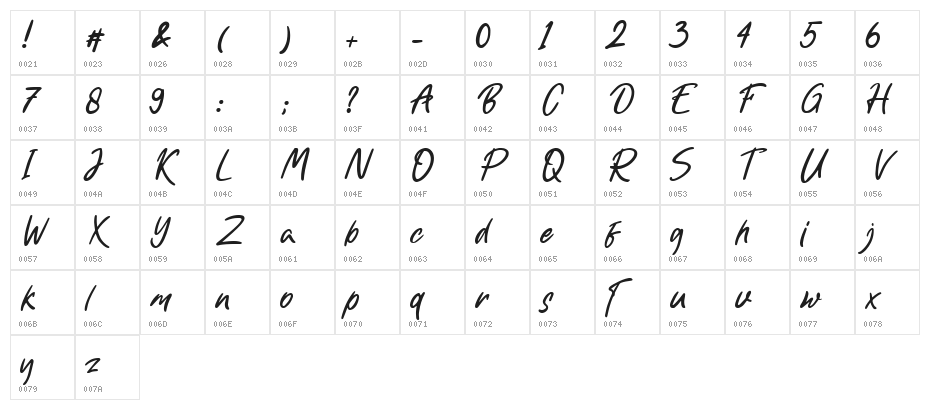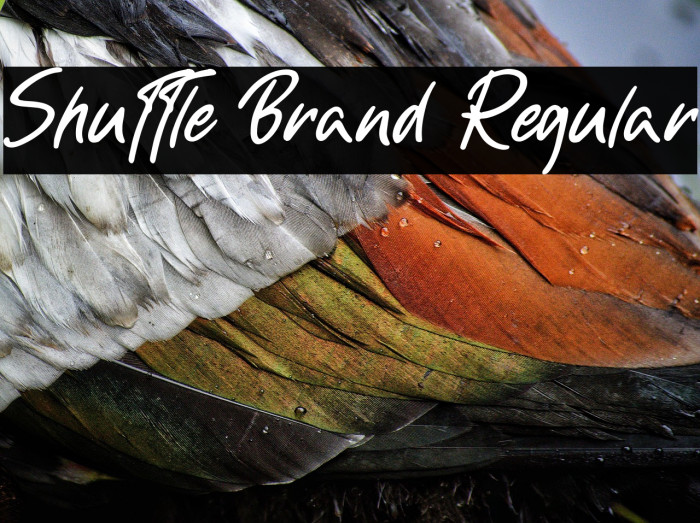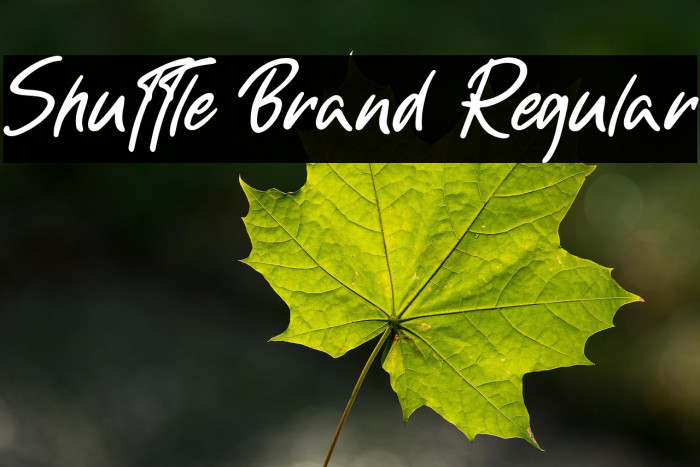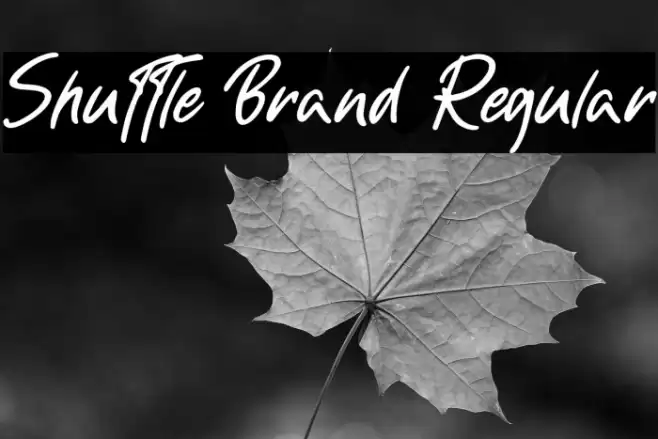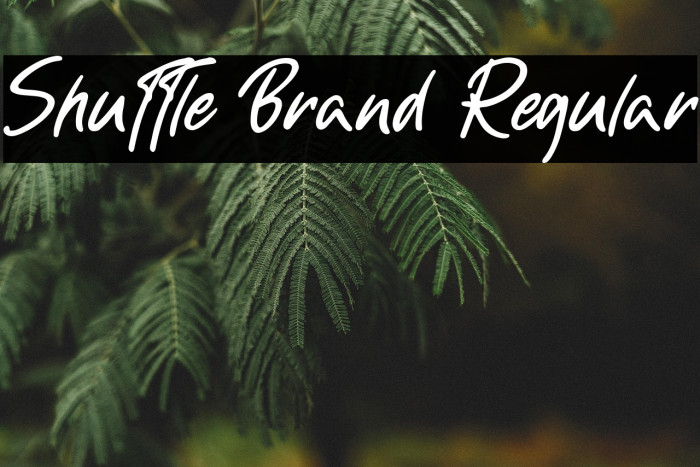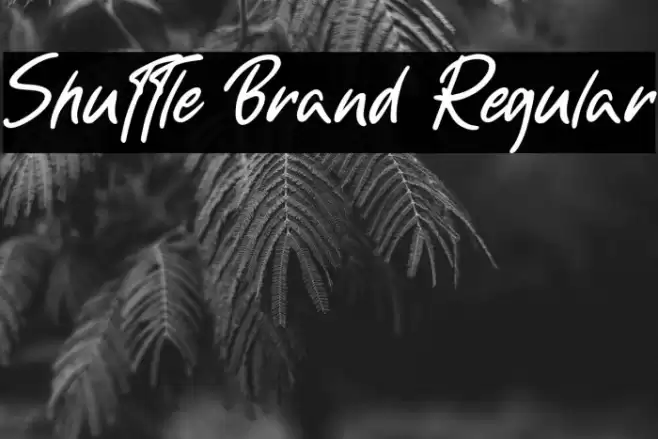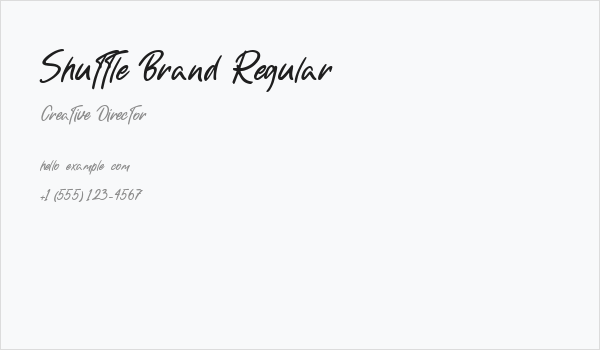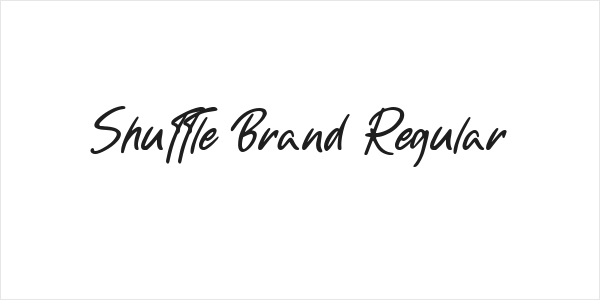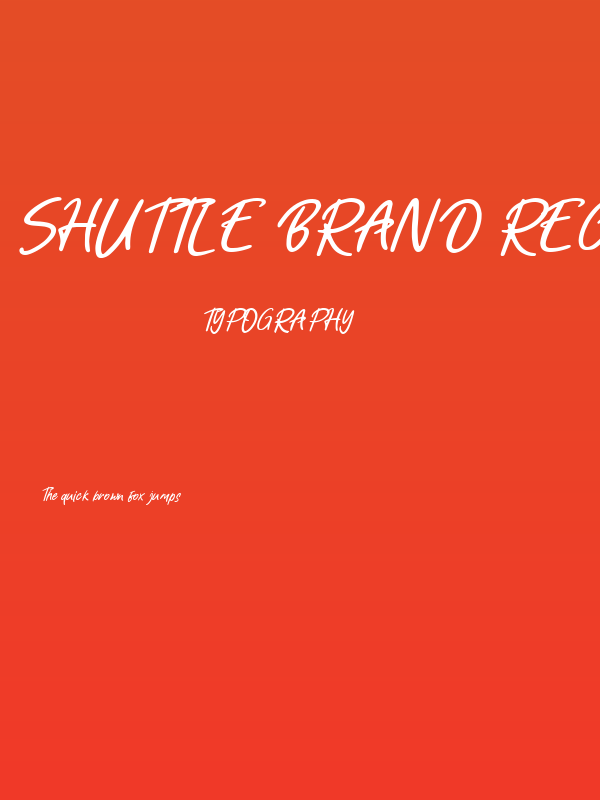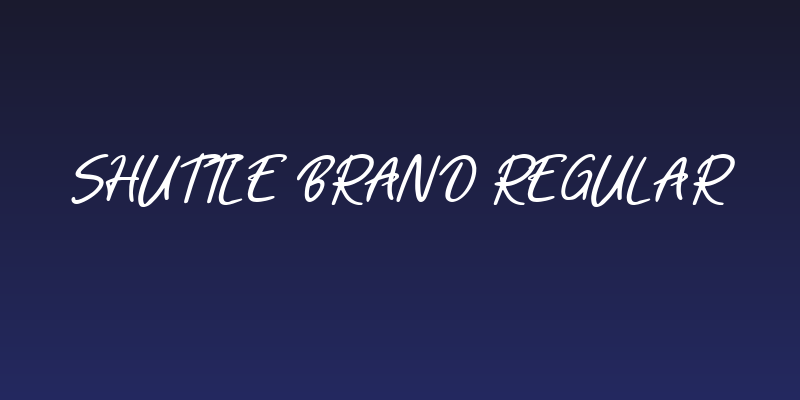
Shuttle Brand Regular Font
Shuttle Brand Regular Description
This font exudes a dynamic and energetic vibe with its fluid, cursive style. The characters are interconnected, creating a seamless flow that mimics natural handwriting. The strokes vary in thickness, adding a lively and spontaneous feel. The uppercase letters maintain a consistent height, while the lowercase letters exhibit a playful bounce, enhancing the font's informal and approachable nature. The numerals and special characters are crafted with the same attention to detail, ensuring uniformity across all glyphs. This font is ideal for projects that require a personal touch, such as invitations, greeting cards, or branding materials that aim to convey creativity and warmth.